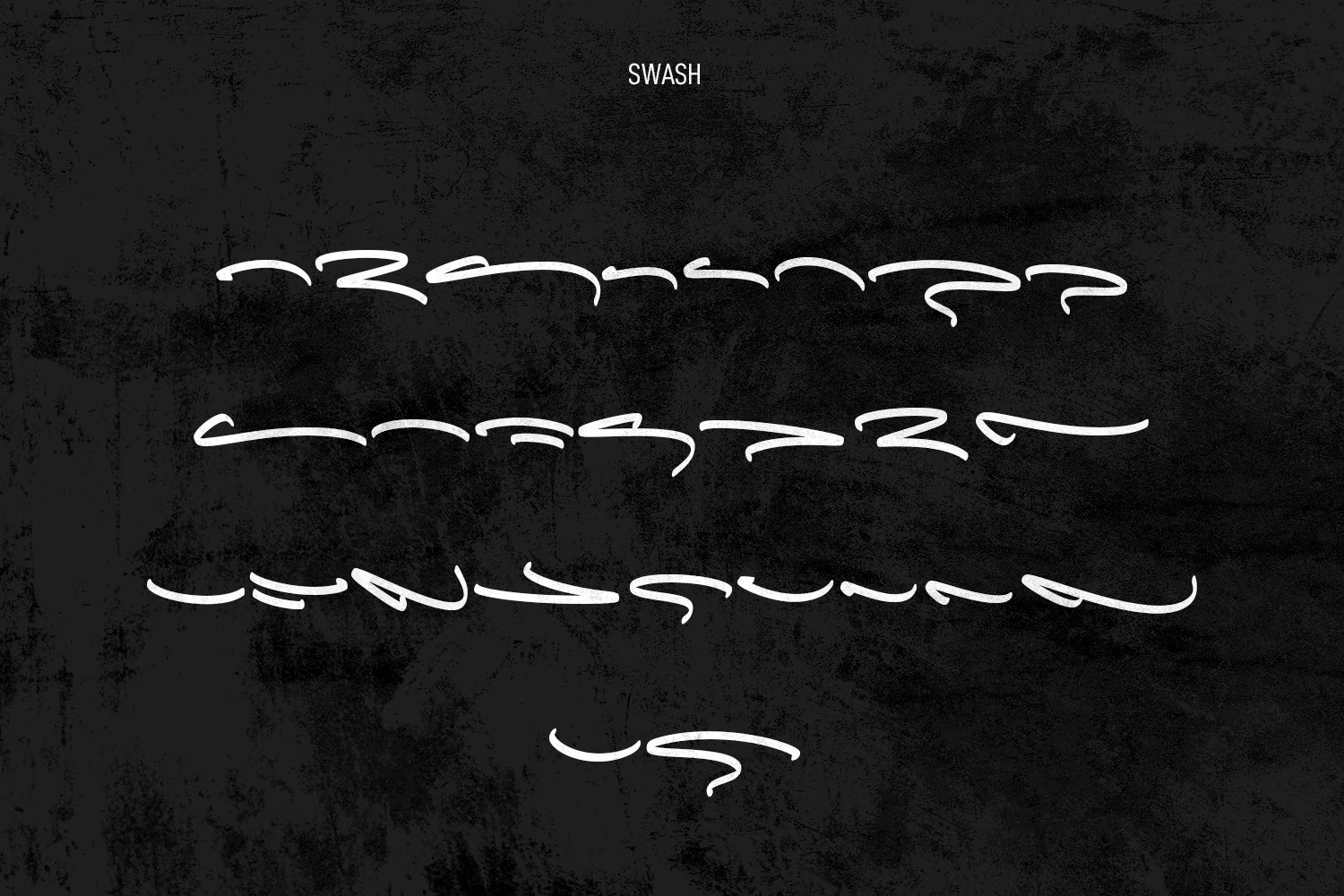
Fallbreeze Script Font Duo
Fallbreeze is a complete collection of script and sans serif font duo. With bold script stroke, Compressed display sans serif character with a bit of ligatures and has a two files lowercase alternates extra swashes. To give you an extra creative work. Fallbreeze font support multilingual more than 100+ language. This font is good for logo design, Social media, Movie Titles, Books Titles, a short text even a long text letter and good for your secondary text font with sans or serif. Make a stunning work with Fallbreeze font.